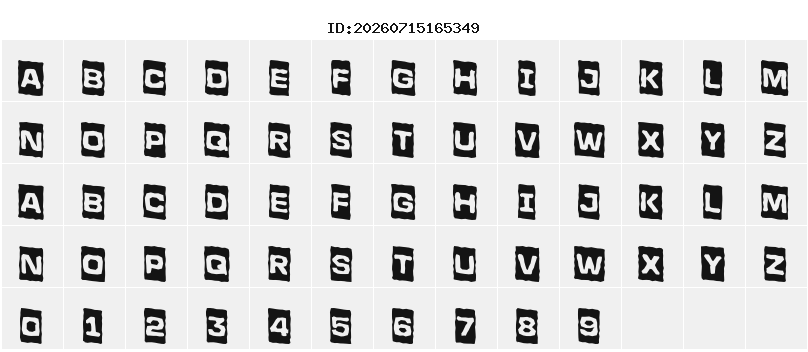
• Font Name: a_LineaSansCmBrkDn
• Full Font Name: a_LineaSansCmBrkDn Bold
• Designer: W.Chufarofsky & M.Slutsker
About a_LineaSansCmBrkDn.ttf
a_LineaSansCmBrkDn.ttf is a modern, elegant sans-serif font designed for ultimate readability and visual harmony. Perfect for branding, headlines, web design, and print materials.